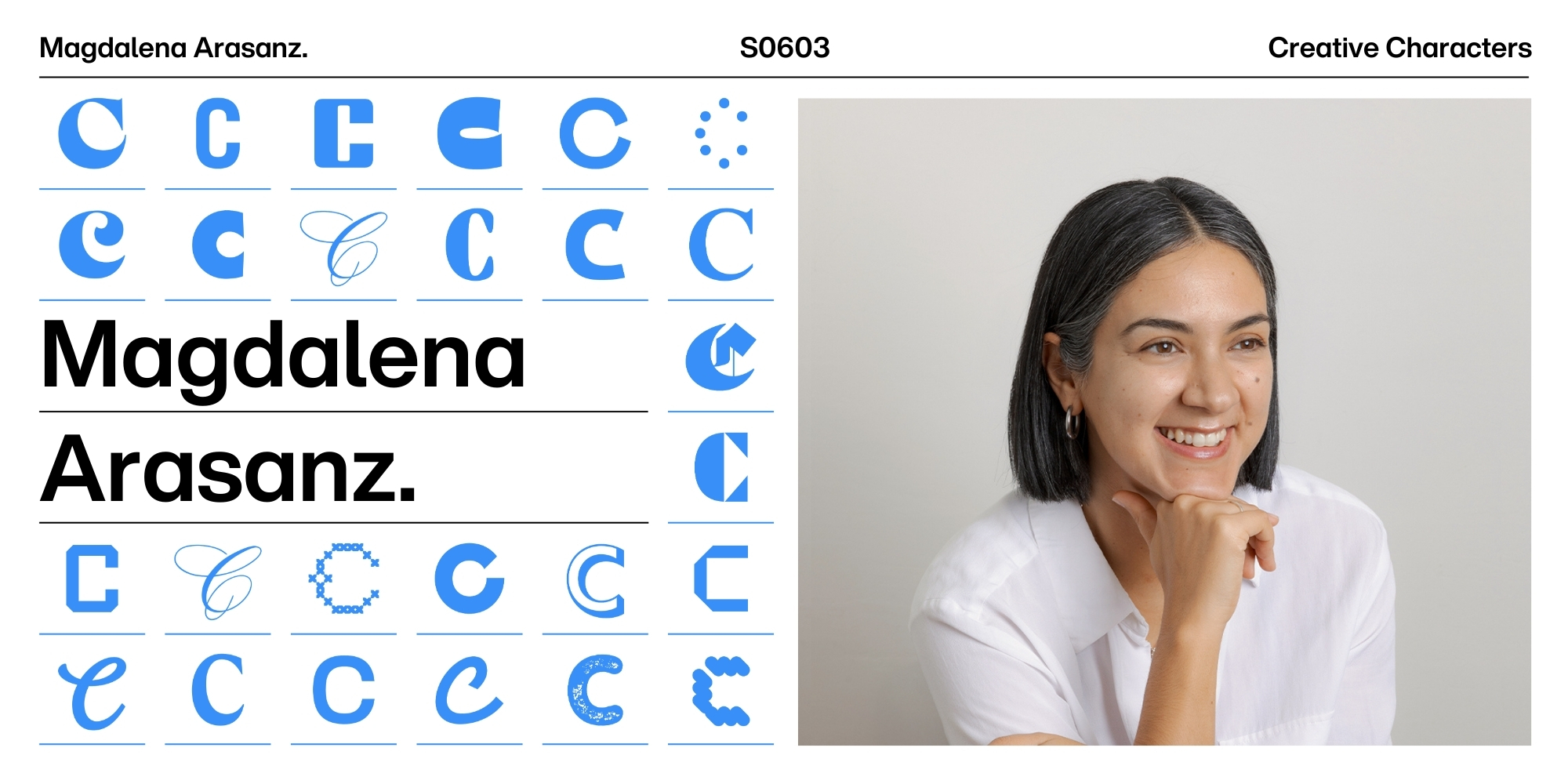
Creative Characters S6 E3: How type design changed everything for Magdalena Arasanz.
“ If you have an idea, or something that you like, or that you want to do — just go for it and do it. But at the same time, look for support, ask for help from people who have done it before. ”
Magdalena Arasanz.
Creative Characters episode featuring Magdalena Arasanz.
In this episode, host Kelci Elliott sits down with Magdalena Arasanz, co-founder of W Type Foundry, to talk about falling unexpectedly in love with type, building a creative business from scratch, and what it really takes to turn design obsession into momentum.
From quirky experimental fonts and the story behind their playful hit typeface “Puffy” to navigating the business side of running a foundry, Magdalena shares a candid, energizing look at creativity, risk, and growth. Tune in to uncover the moments that sparked transformation and the ideas that continue to fuel Magdalena’s journey.